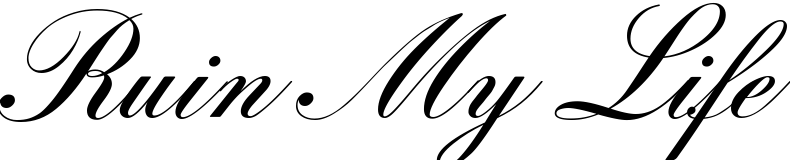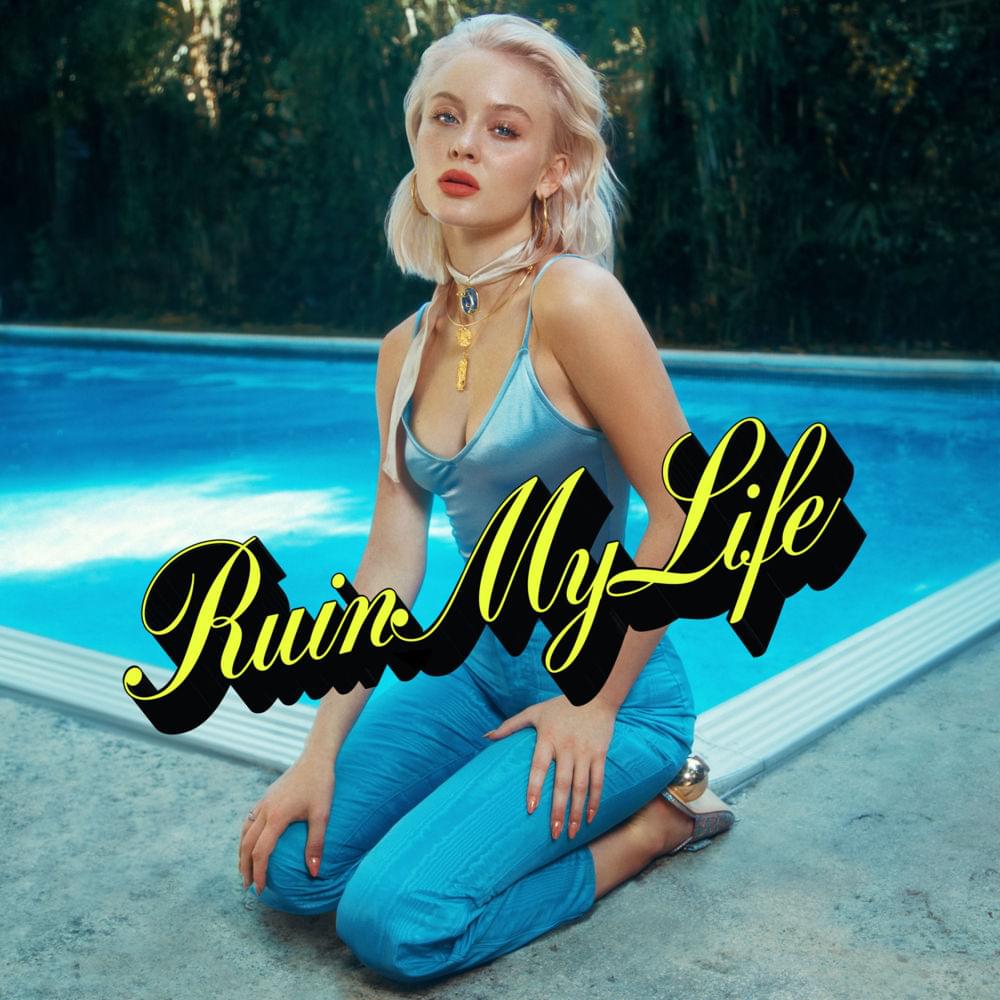
Ruin My Life Font
Fonts in UseRuin My Life is a 2018 single by Zara Larsson about a toxic and addictive relationship, serving as the lead single from her third studio album.
The featured cover art showcases the elegant script font named Zeal, created from original font filmstrips during the phototype era.